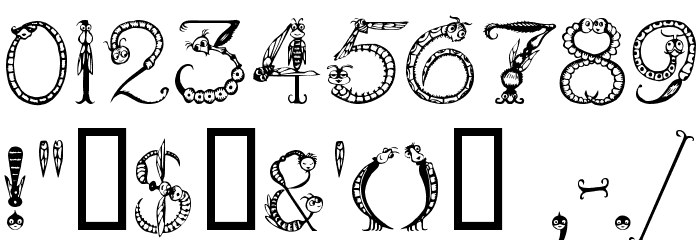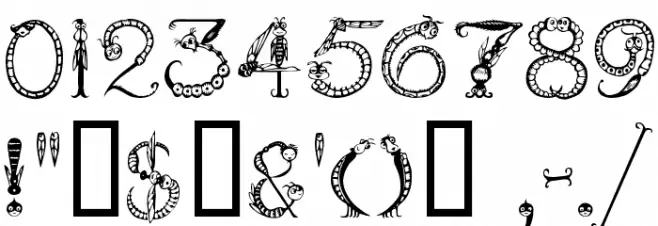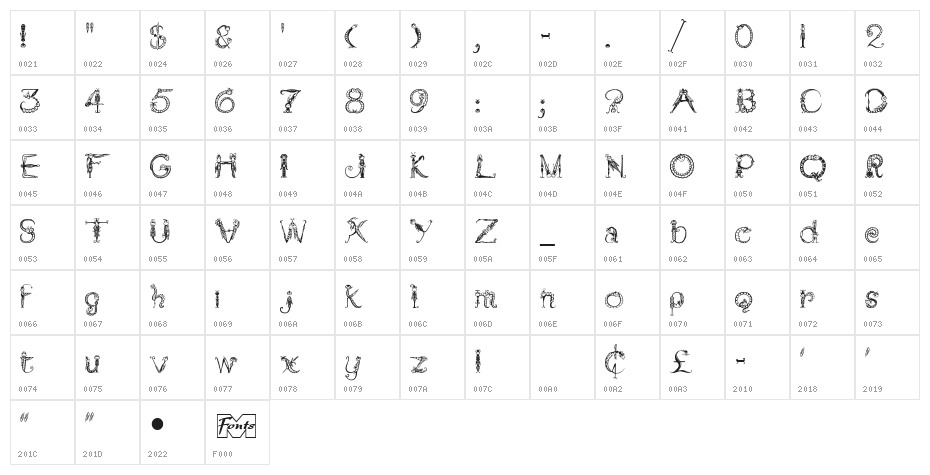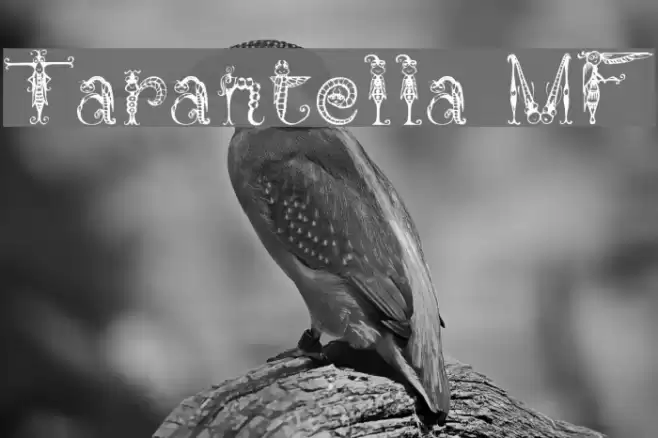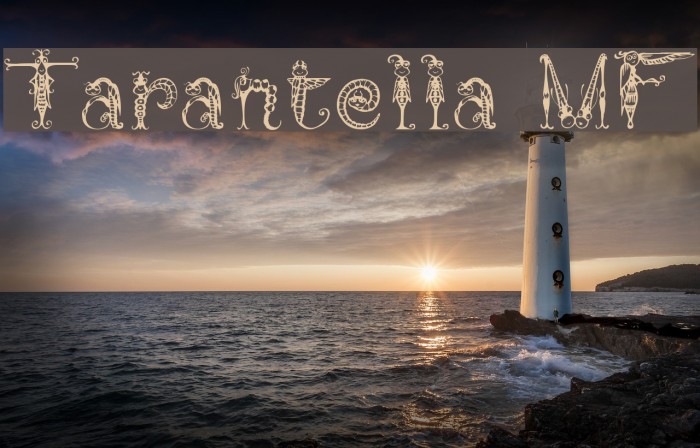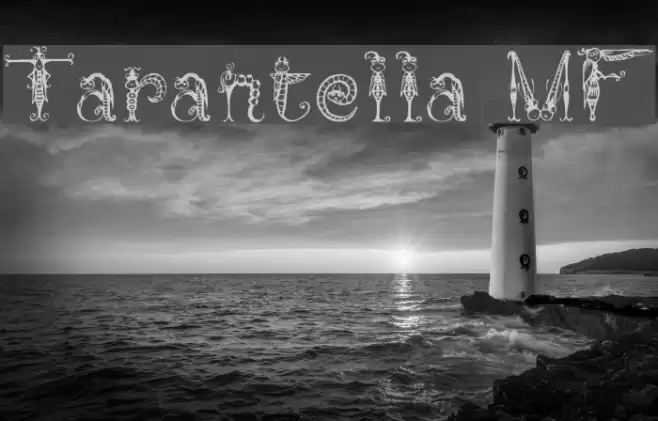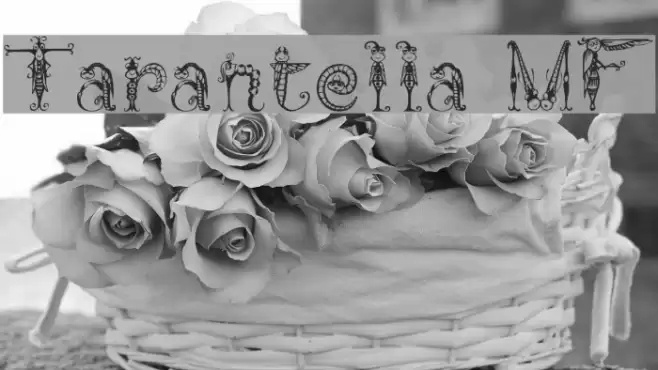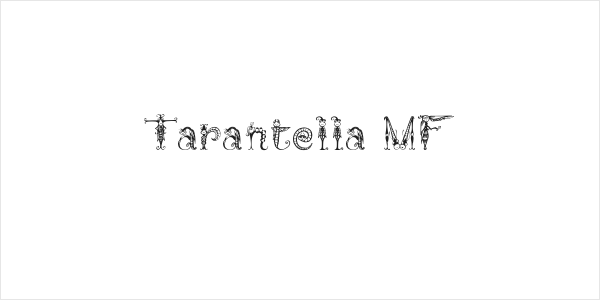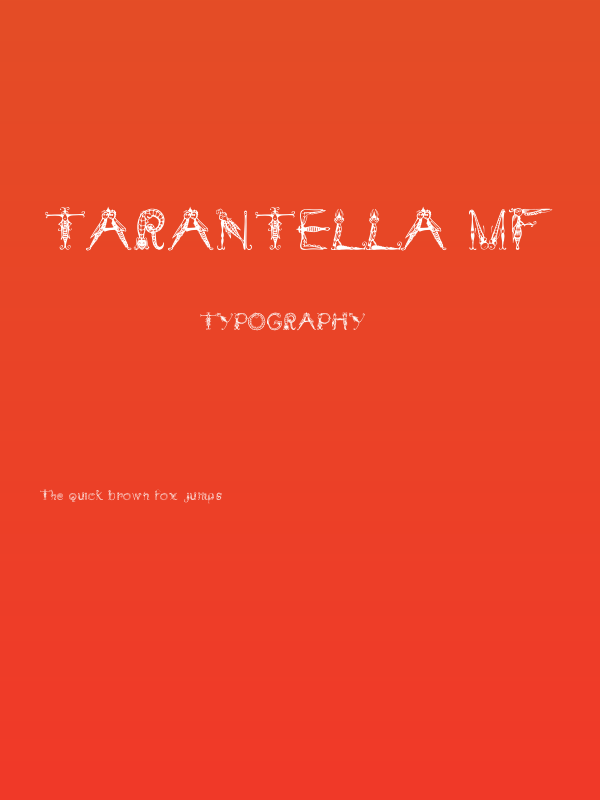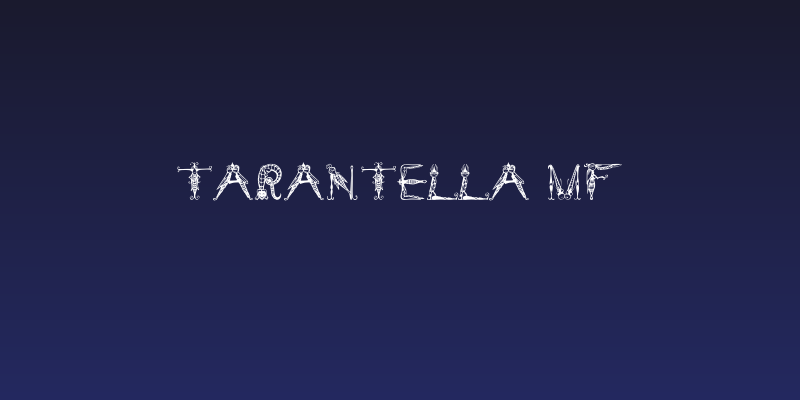
Tarantella MF Font
Tarantella MF Description
This whimsical and playful font features characters that are intricately designed with elements resembling insects and nature. Each letter is adorned with unique details, such as antennae, wings, and legs, giving the font a lively and animated appearance. The characters are highly decorative, with a strong emphasis on creativity and imagination. The font's intricate design makes it suitable for projects that require a touch of fantasy and fun. Its distinctive style is perfect for capturing attention and adding a unique flair to any design.
| Proposed Projects | Ideal for children's books, fantasy-themed posters, creative invitations, and playful branding. |